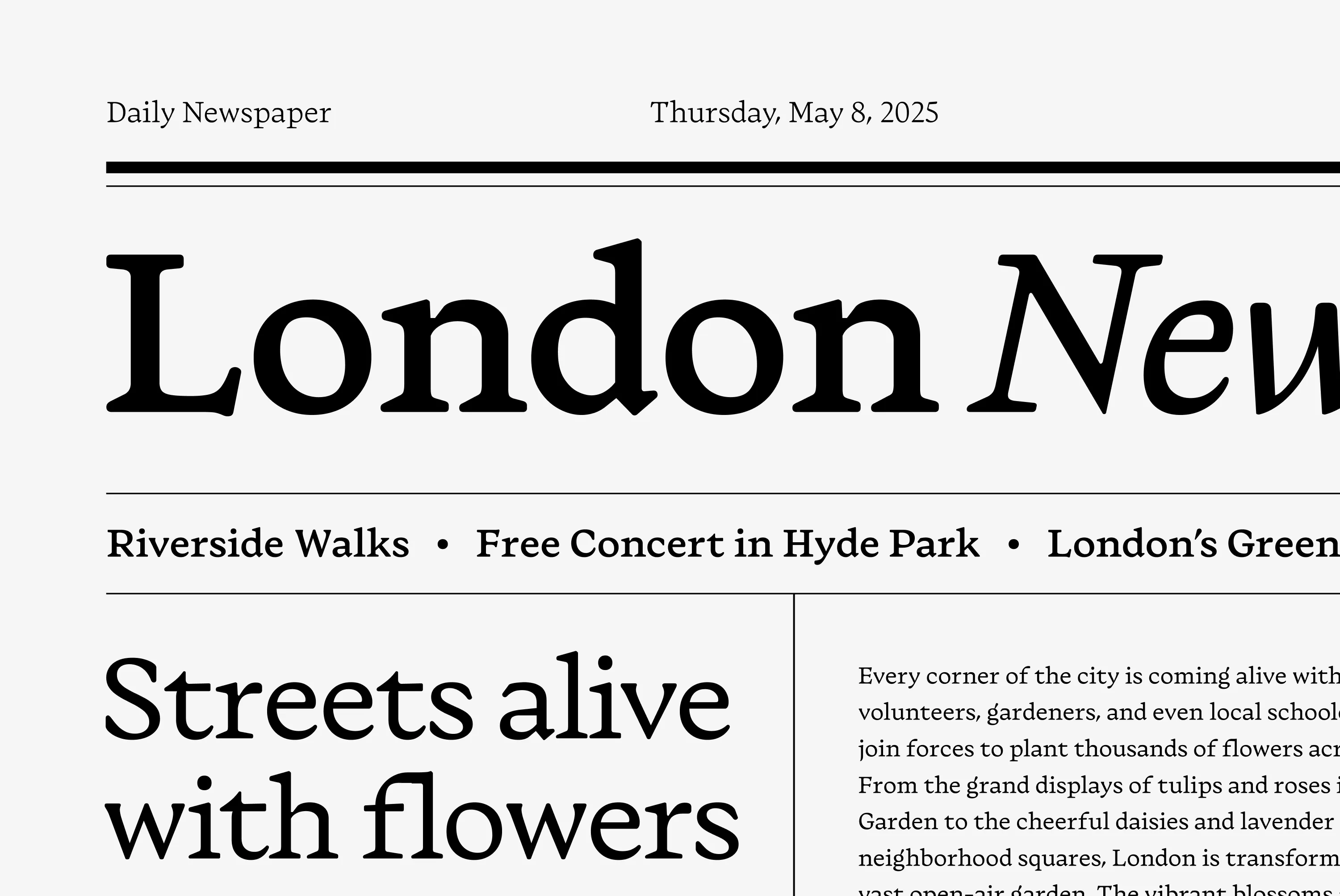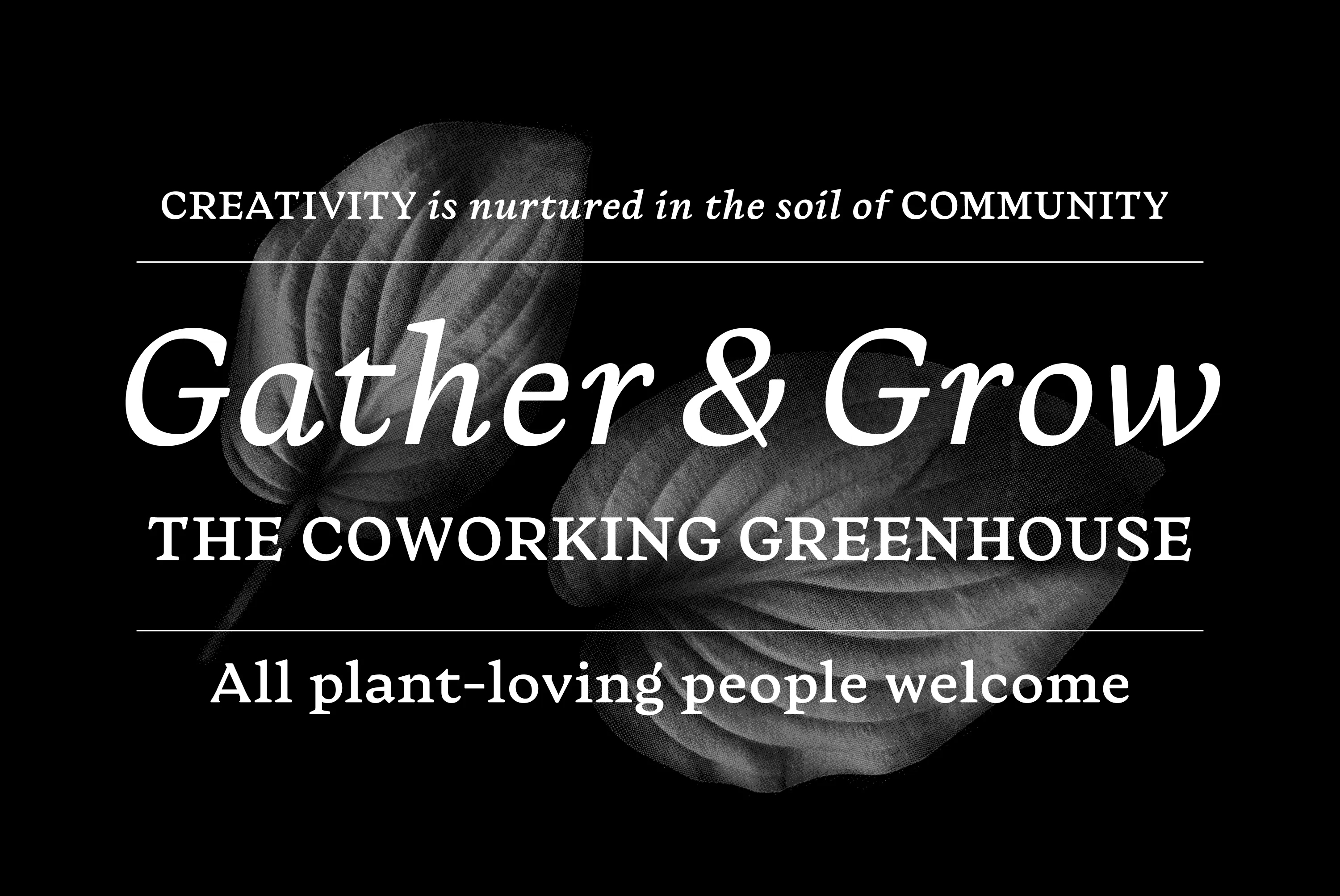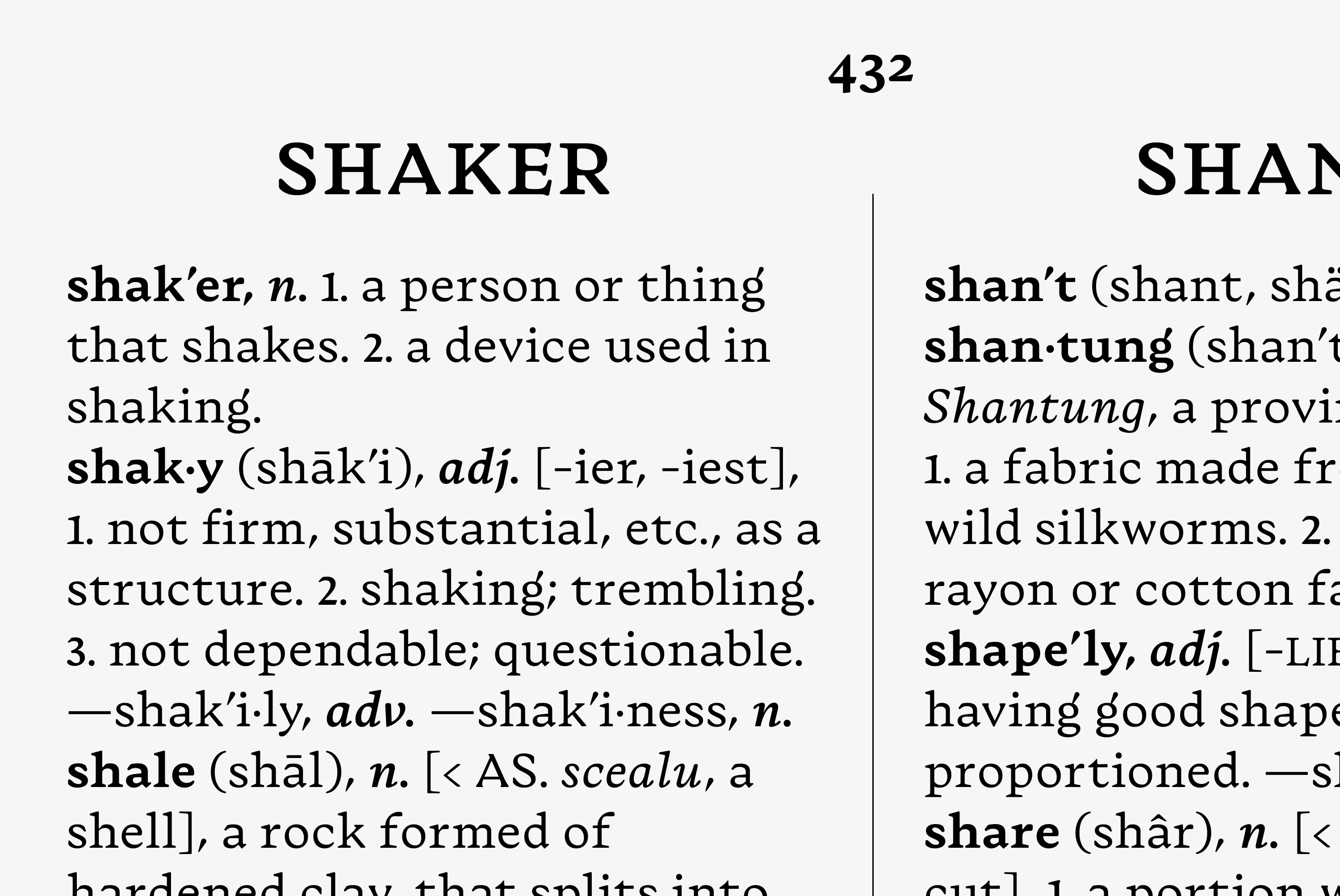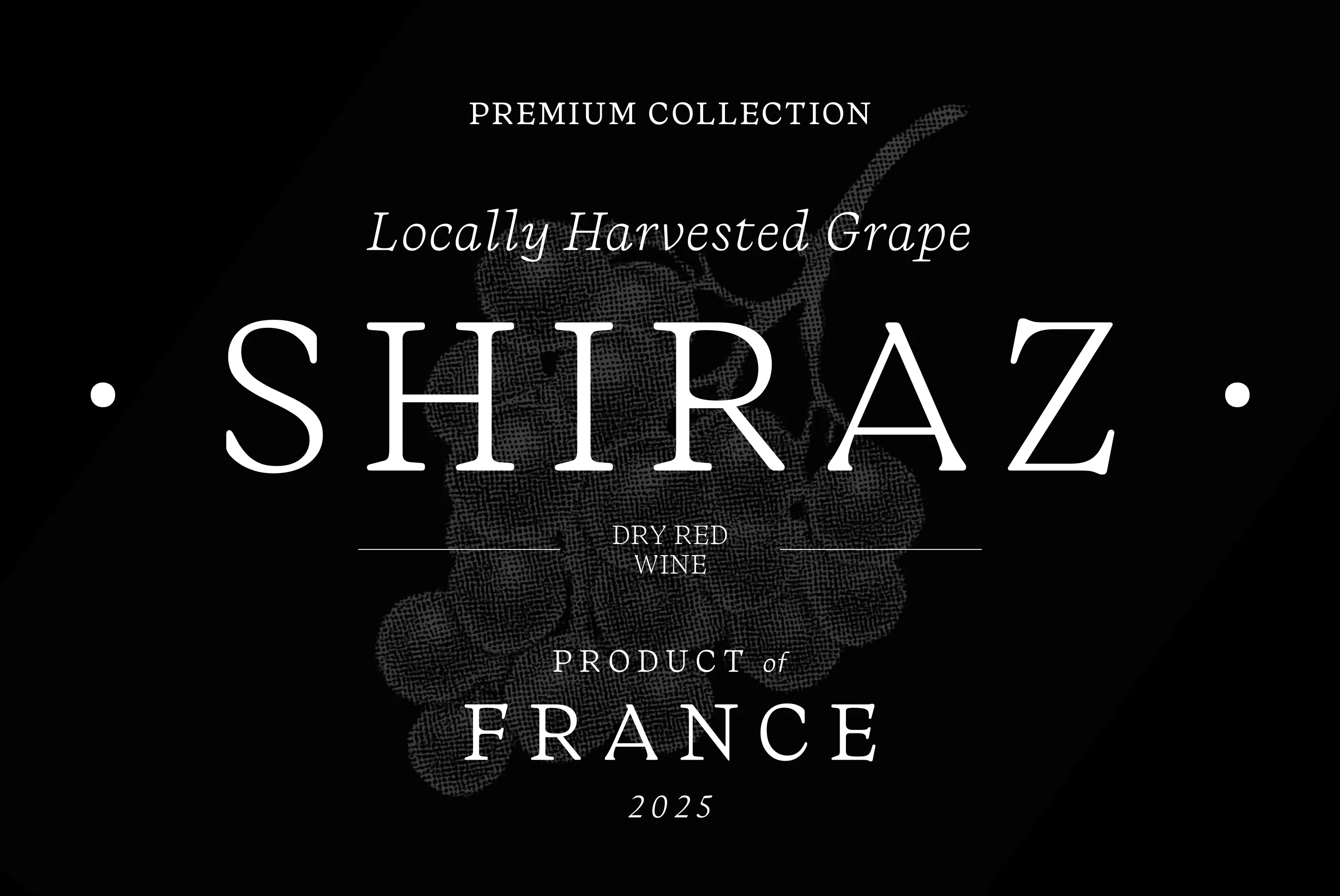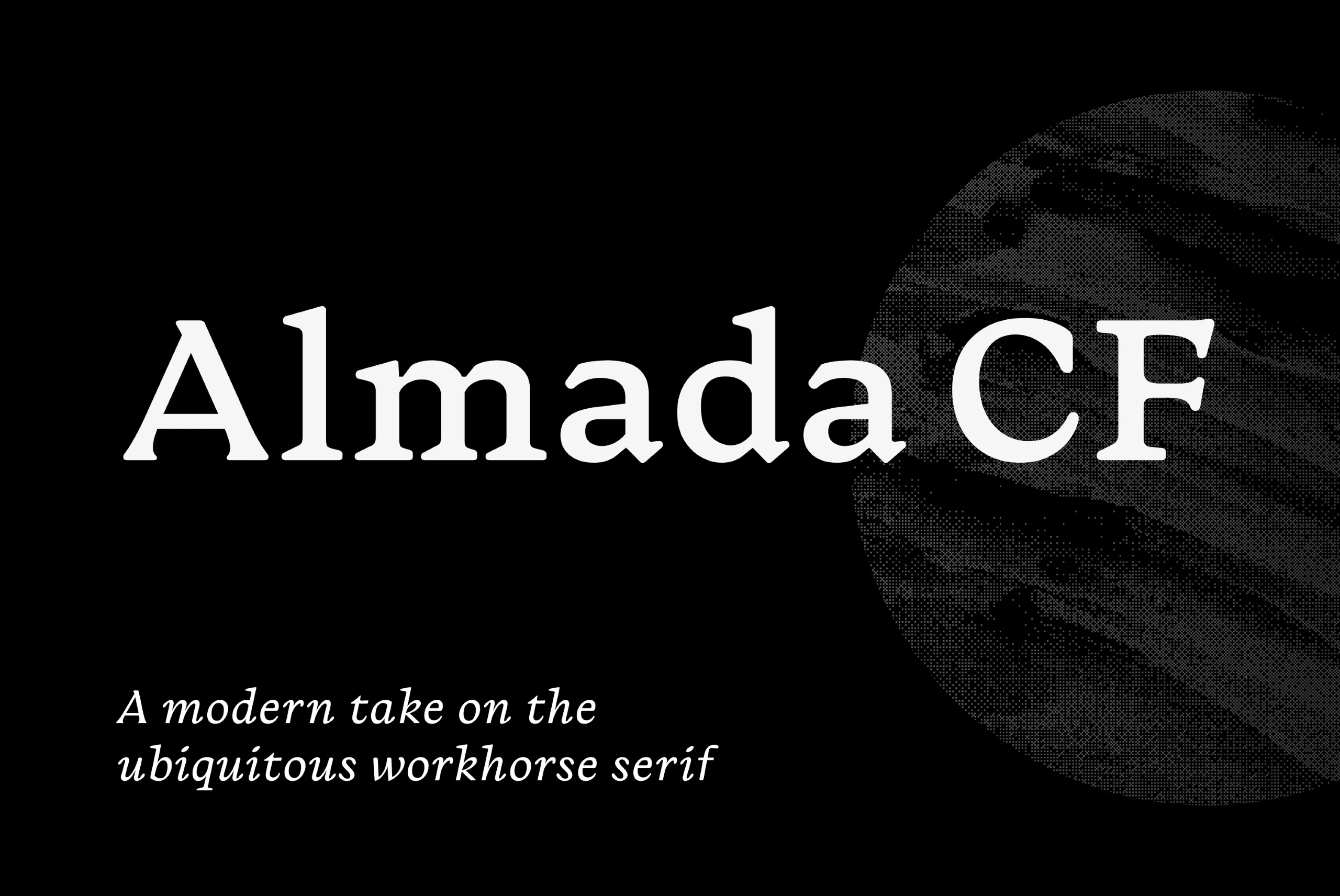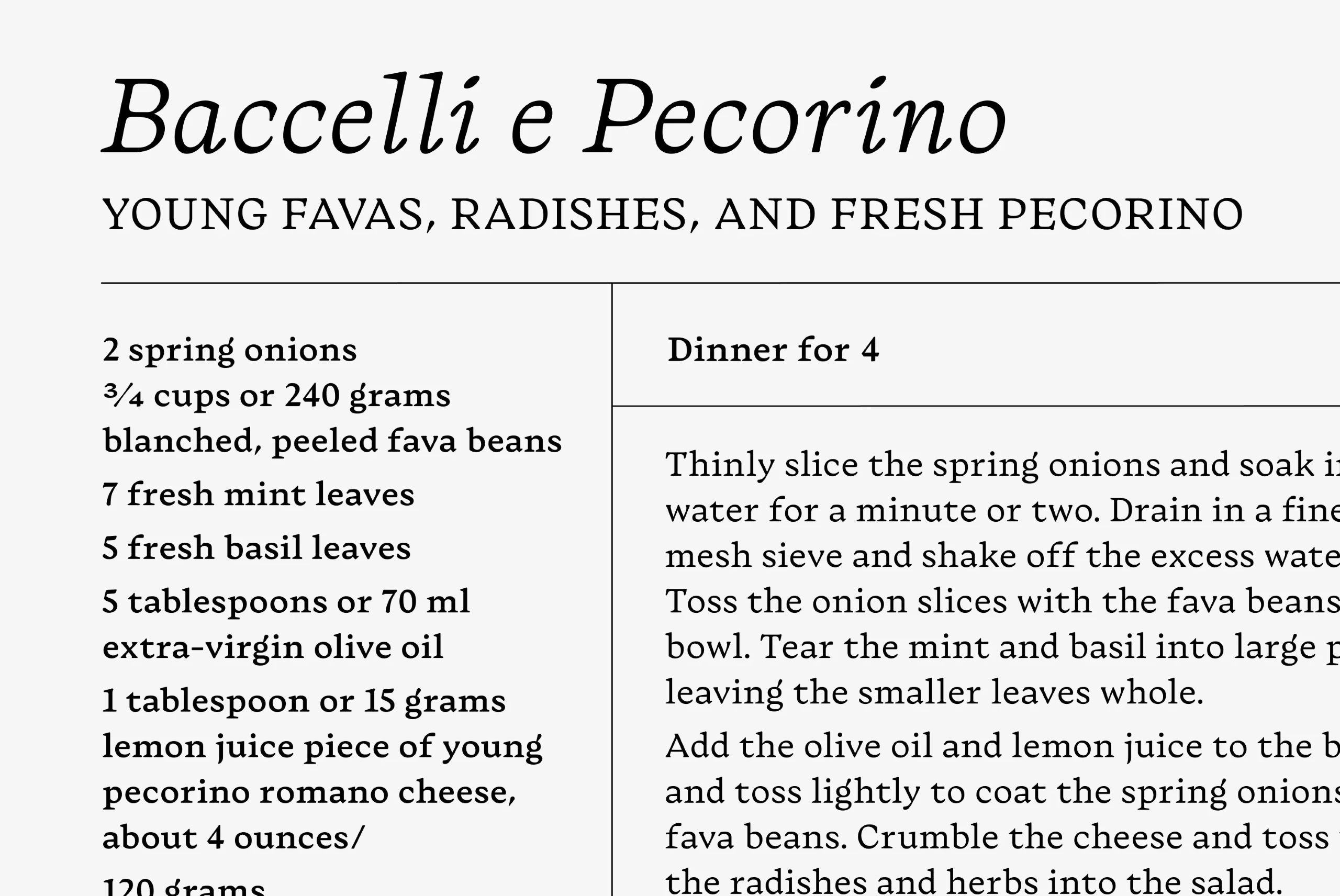
Almada
Almada CF is a dependable, text-focused serif font family. It’s a stylish, modern take on ubiquitous workhorse serifs found in offices around the 1970s. Carefully tuned spacing and long, purposeful serifs ground the text, providing stability for extended reading, while unexpected details create an engaging rhythm at display sizes. Supporting Cyrillic, Greek, and Latin scripts, and offered from Extra Light to Extra Bold with italics and variable fonts. Almada CF is ready to work!
five Weights in Latin & Cyrillic • Greek Script
Language support includes Belarusian, Bulgarian, Catalan, Chinese Pinyin, Croatian, Czech, Danish, Dutch, English, Filipino, Finnish, French, Fula, German, Greek, Hungarian, Indonesian, Italian, Latvian, Malay, Maltese, Norwegian, Polish, Portuguese, Romanian, Russian, Serbian, Slovak, Slovenian, Spanish, Swedish, Turkish, Ukrainian, Uzbek, Vietnamese